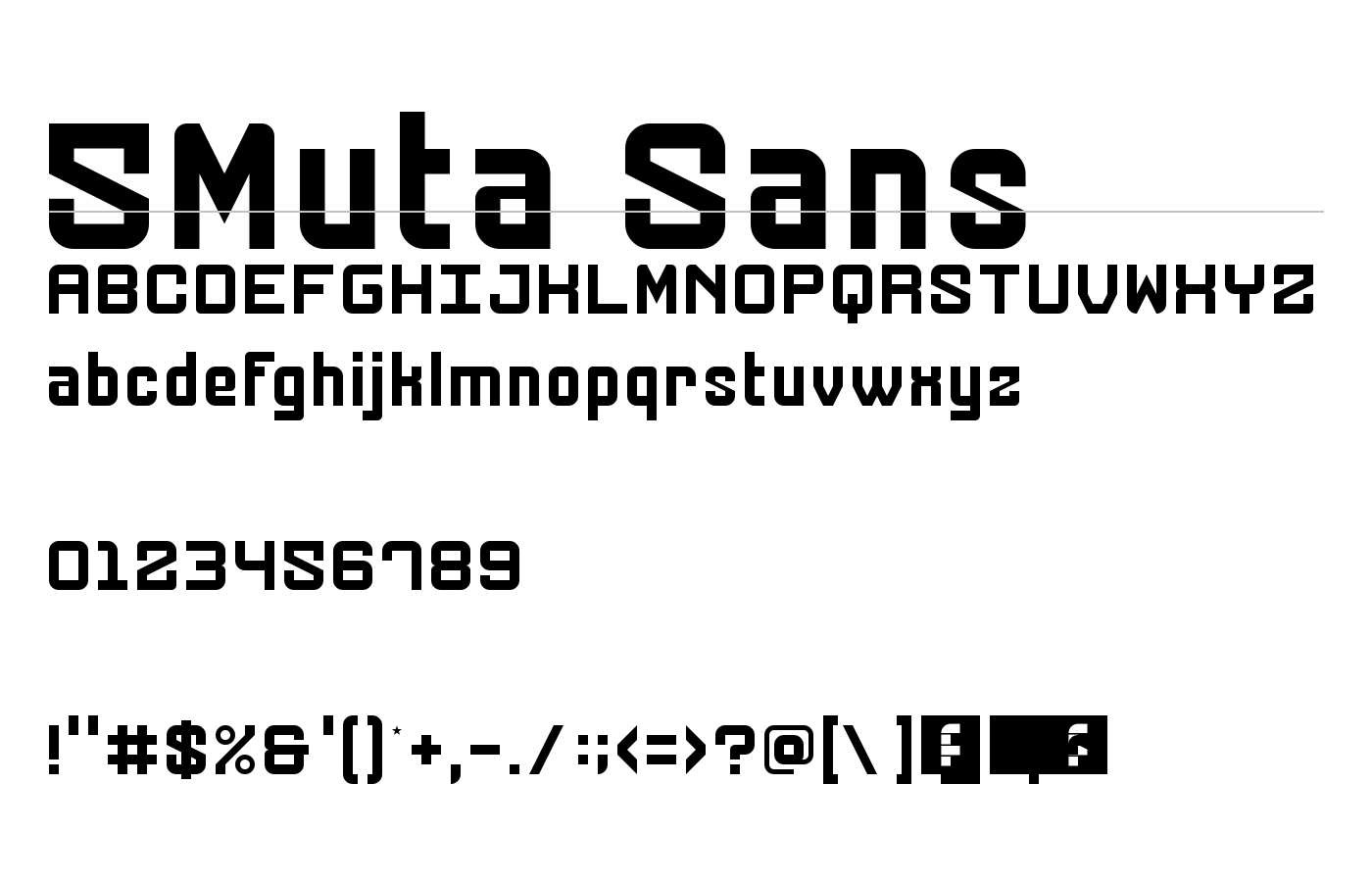
5Muta Sans is a bold, geometric sans serif font with a modern, slightly industrial feel. Its strong, squared letterforms and uniform stroke weight give it a sturdy, structured appearance, making it ideal for tech, branding, and headlines that need a contemporary and confident look. This font works well for logos and posters where clarity and impact are key.
5Muta Sans Font
About 5Muta Sans Font
| Font family | 5Muta Sans Font |
| Designer | Noah - 10 year old typomaniac |